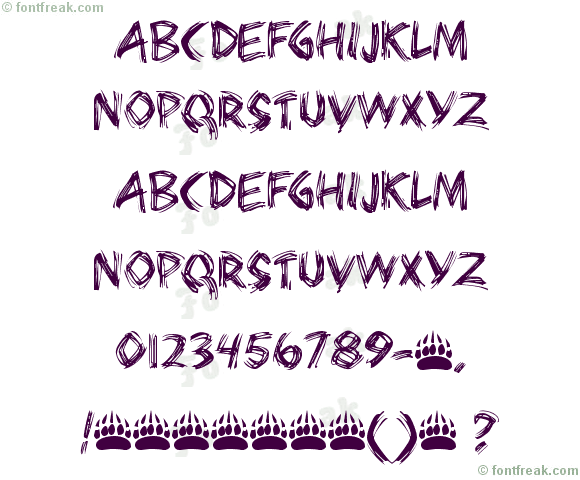
Bearpaw
Bearpaw is a unique handwritten display font designed by Dennis Anderson in 1999. This freeware typeface showcases a distinctive, playful style that captures the essence of informal, artistic expression. The font features a medium stroke weight, offering a balance between boldness and legibility. Its slightly uneven spacing and irregular character forms add to the overall charm, making it feel organic and spontaneous. The strokes have a textured, brush-like appearance, enhancing its handcrafted appeal.
Bearpaw is ideal for a variety of creative applications. It shines in settings such as children's book covers, where its whimsical nature can captivate young readers. Additionally, it works well for outdoor event posters, lending a rustic and adventurous vibe. The font is also a great choice for branding small artisanal businesses, like handmade crafts or organic food products, as it conveys authenticity and a personal touch. Wedding invitations can benefit from Bearpaw’s casual elegance, offering a relaxed yet stylish option for couples looking to set a friendly tone for their special day. Moreover, it can be effectively used in social media graphics, where a unique visual style can help content stand out.
Target audiences for Bearpaw include graphic designers seeking to infuse personality into their projects, small business owners looking for a distinctive brand identity, and content creators aiming to enhance their visual storytelling. This font stands out due to its blend of artistry and versatility, allowing it to be used in a multitude of contexts while maintaining a cohesive and inviting aesthetic. For those interested in adding this creative flair to their designs, Bearpaw font free download is readily available, making it an accessible choice for anyone looking to elevate their visual communication.